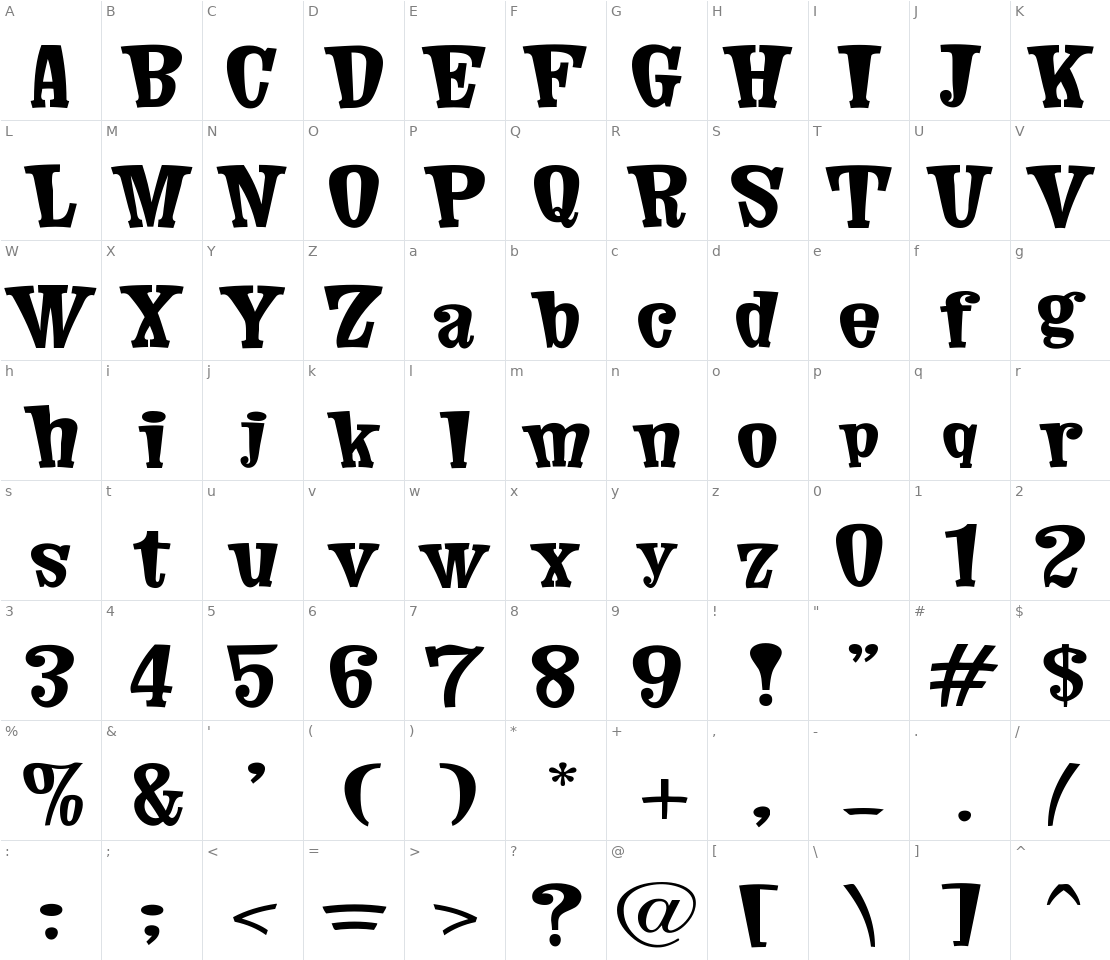
Comic Cover
Comic Cover is a bold, heavy display face from Woodcutter that nails the look of classic comic book title lettering. The thick, punchy letterforms have that hand-inked energy you'd expect splashed across a cover, playful but with enough weight to command attention. Built for headlines, posters, and anywhere type needs to feel like it comes with its own sound effects.